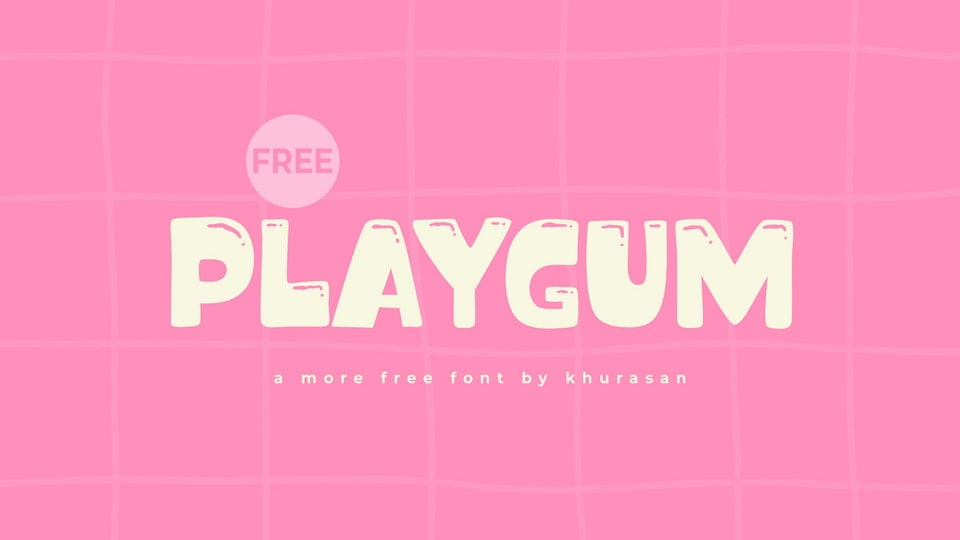
Download Playgum font, a bold, chunky display typeface bursting with playful energy and sweet, bubblegum vibes. Its soft-edged, blocky letters with fun little imperfections create a lively, carefree mood.